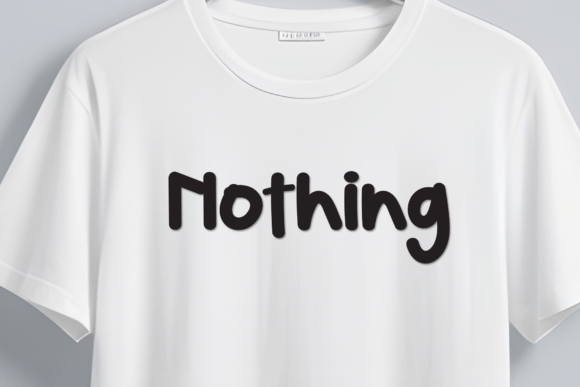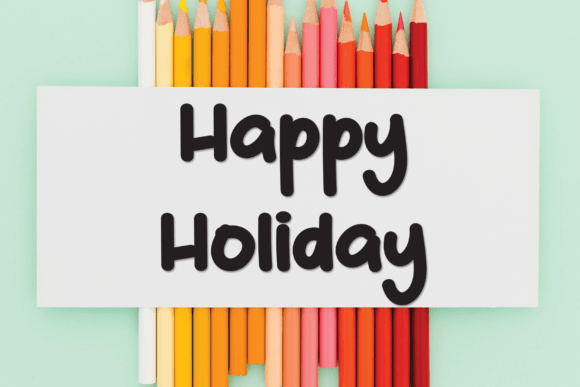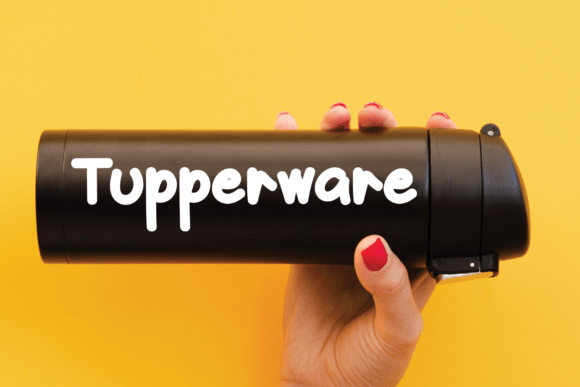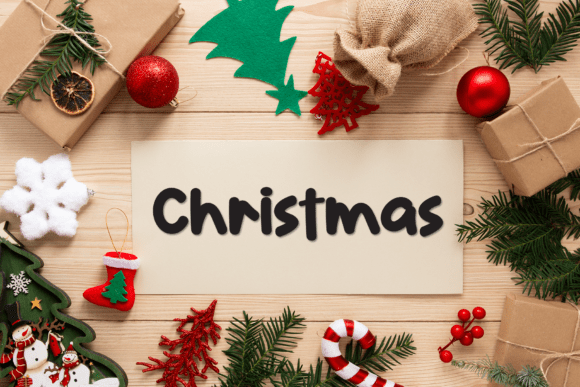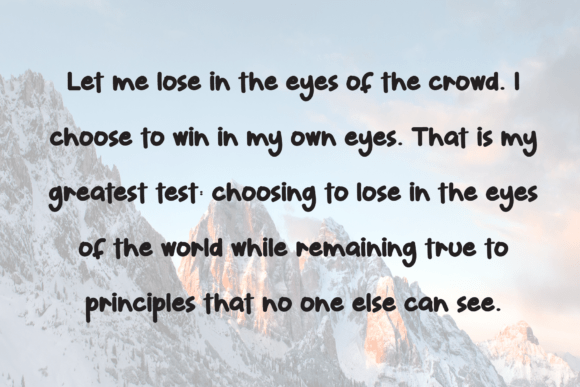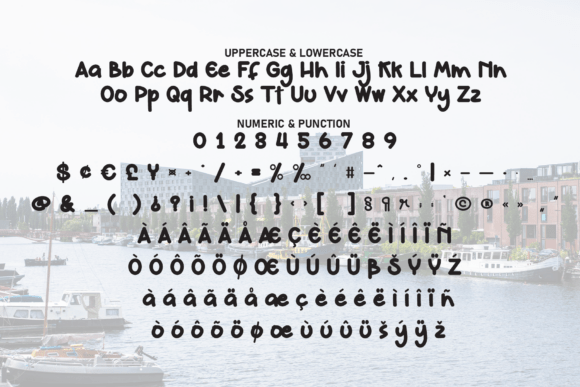
Introducing Amsterdam Font: The Cheerful and Charming Handwritten Display Font
Are you tired of using the same old fonts in your designs? Do you want to add a touch of sweetness, friendliness, and fun to your projects? Look no further than Amsterdam Font, a lovable handwritten display font that’s sure to elevate your designs and make them truly unforgettable.
The Essence of Amsterdam Font
Amsterdam Font is a cheerful and charming handwritten display font that perfectly captures the essence of sweetness, friendliness, and fun. With its spontaneous strokes and whimsical flair, this font is ideal for designers and crafters who want to add a delightful touch to their projects. Whether you’re creating wedding invitations, greeting cards, or social media graphics, Amsterdam Font is the perfect choice.
What Makes Amsterdam Font Special?
So, what makes Amsterdam Font so special? Here are just a few reasons why this font stands out from the rest:
- Unique and Whimsical Design: Amsterdam Font features a unique and whimsical design that’s sure to capture the attention of your audience. Its spontaneous strokes and charming letterforms make it perfect for creating eye-catching designs.
- Perfect for Wedding Invitations and Cards: If you’re looking for a font that’s perfect for wedding invitations or cards, Amsterdam Font is an excellent choice. Its sweet and charming design is sure to make your designs stand out and leave a lasting impression.
- Seamless Blend of Aesthetics and Creativity: Amsterdam Font seamlessly blends aesthetics and creativity, making it perfect for designers who want to create beautiful and effective designs. Whether you’re a professional designer or a DIY crafter, this font is sure to inspire your creativity.
How to Use Amsterdam Font in Your Designs
Using Amsterdam Font in your designs is easy. Here are a few tips to get you started:
- Pair it with Other Fonts: Amsterdam Font pairs well with other fonts, making it easy to create beautiful and effective designs. Try pairing it with a simple sans-serif font for a bold and eye-catching look.
- Use it for Headings and Titles: Amsterdam Font is perfect for headings and titles, where its whimsical design can really shine. Use it to add a touch of personality to your designs and make them stand out.
- Experiment with Different Colors and Textures: Amsterdam Font looks great in a variety of colors and textures. Experiment with different colors and textures to find the perfect look for your design.
Why Choose Amsterdam Font?
So, why choose Amsterdam Font for your designs? Here are just a few reasons why this font is a great choice:
- High-Quality Design: Amsterdam Font features a high-quality design that’s sure to impress your audience. Its unique and whimsical design makes it perfect for creating eye-catching designs.
- Easy to Read and Use: Amsterdam Font is easy to read and use, making it perfect for designers and crafters of all skill levels. Whether you’re a professional designer or a DIY crafter, this font is easy to use and works well in a variety of designs.
- Perfect for a Variety of Projects: Amsterdam Font is perfect for a variety of projects, including wedding invitations, greeting cards, social media graphics, and more. Its whimsical design makes it a great choice for any project where you want to add a touch of personality.
In conclusion, Amsterdam Font is a cheerful and charming handwritten display font that’s perfect for designers and crafters who want to add a touch of sweetness, friendliness, and fun to their projects. With its unique and whimsical design, Amsterdam Font is sure to make your designs stand out and leave a lasting impression. So why just write when you can create a whimsical experience with our captivating font?